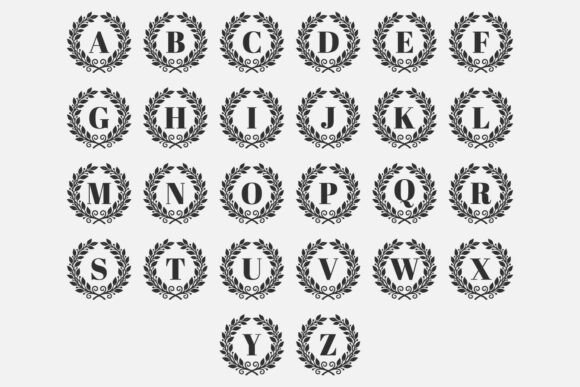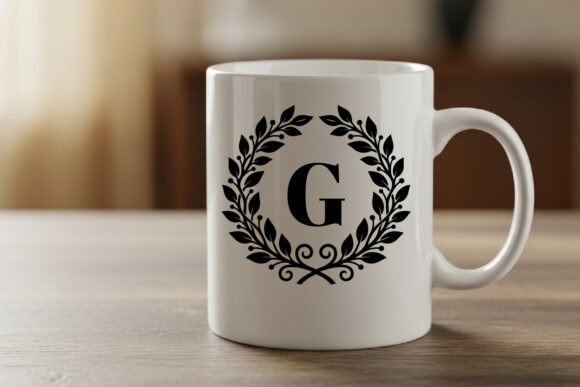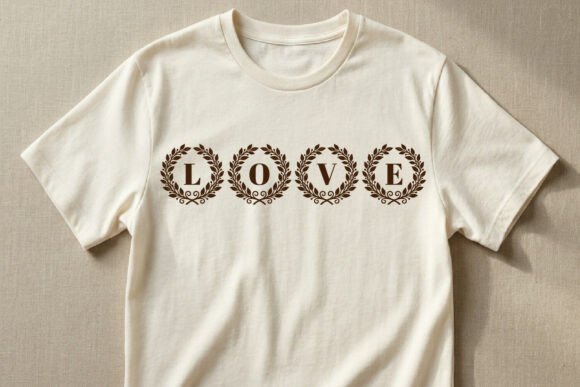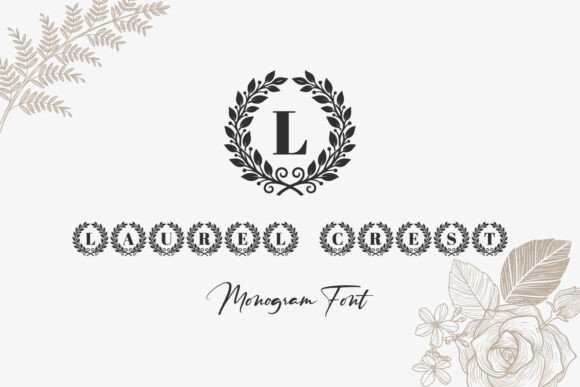
Introduction to Laurel Crest Font
Laurel Crest Monogram Font is a sophisticated decorative typeface inspired by timeless laurel wreaths and elegant crest emblems.
Each letter is beautifully surrounded by detailed botanical wreath elements, creating a luxurious and refined monogram style perfect for premium creative projects This font is ideal for wedding invitations, custom monograms, boutique branding, logo designs, Cricut and Silhouette crafts, social media graphics, stationery, certificates, home decor, and personalized gifts.
Key Features of Laurel Crest Font
Why Choose Laurel Crest Font?
Laurel Crest Font offers exceptional quality and versatility, making it a valuable addition to your design toolkit. Whether you’re creating for personal projects or commercial use, Laurel Crest Font delivers professional results.